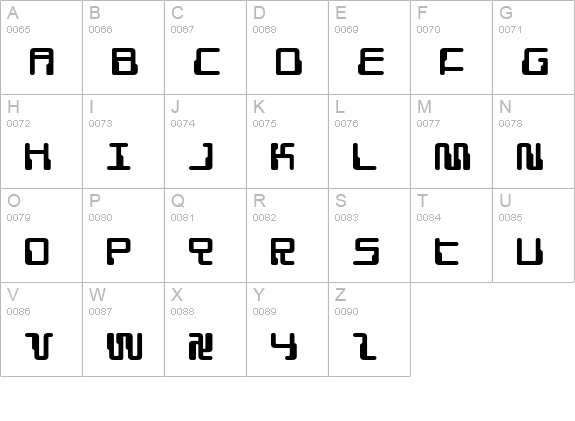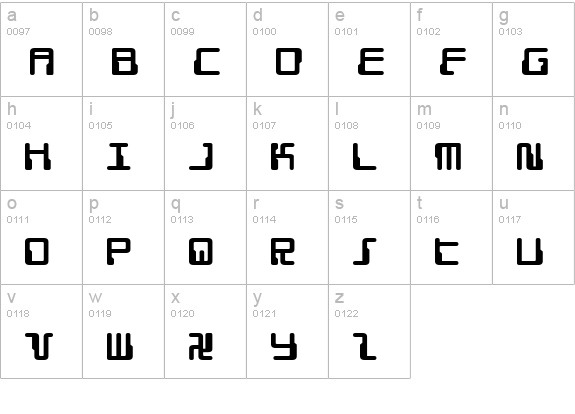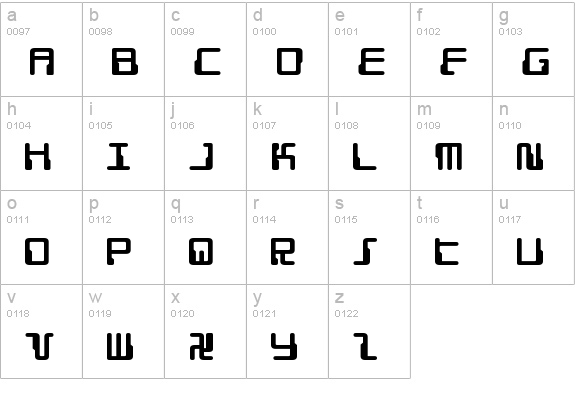
Droid Lover Expanded is a distinctive, extended-width variant in the Droid typeface family \xE2\x80\x94 well suited to design and typography projects.
Droid Lover Expanded font is a sleek and modern typeface that exudes sophistication and style. With its clean lines and expanded letterforms, this font is perfect for making a bold statement in your designs. Whether you're creating posters, logos, or branding materials, Droid Lover Expanded font will add a touch of elegance to your projects. Best of all, Droid Lover Expanded font is available for free download at FontsMarket.com. So you can easily access this versatile typeface and elevate your design work without any cost. Don't miss out on the opportunity to enhance your projects with the stunning Droid Lover Expanded font – download it today and let your creativity shine!